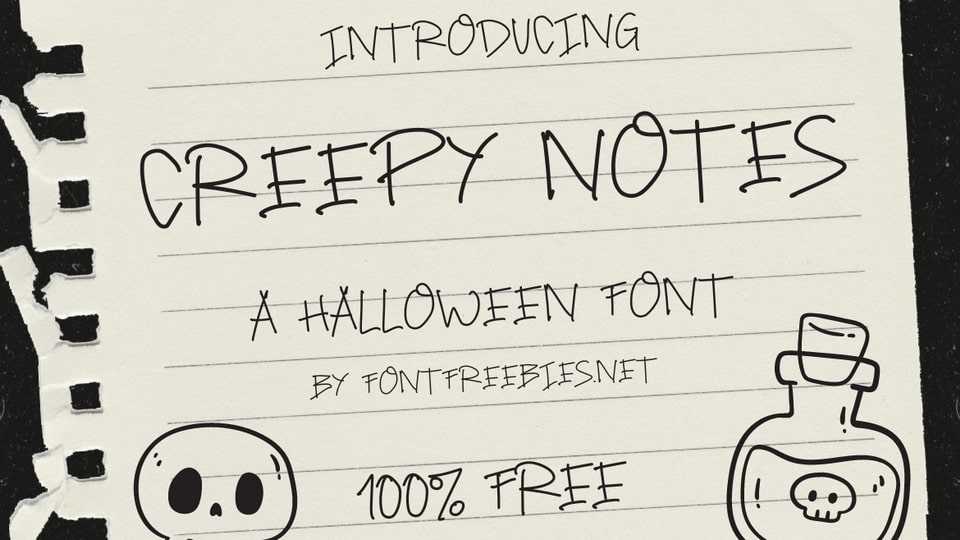
Download Creepy Notes font, a hand-drawn typeface designed to mimic scribbled, haunted notes, making it the perfect addition to your Halloween-themed designs.